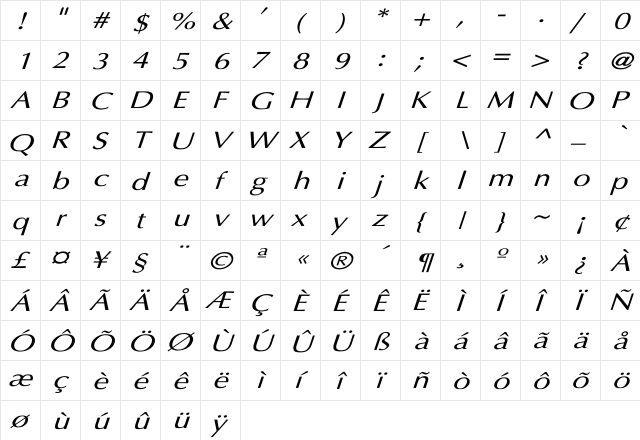
Optima Italic Wd Italic Italic
Design Context for Optima Italic Wd Italic Typeface
Optima Italic Wd Italic is a composed and adaptable typeface that performs quietly and consistently across a wide range of design contexts. Its italic angle brings a sense of urgency and motion to the letterforms.
Pro Tip: Use Optima Italic Wd Italic for emphasis, pull quotes, and subheadings where its slanted energy can add rhythm to the layout.